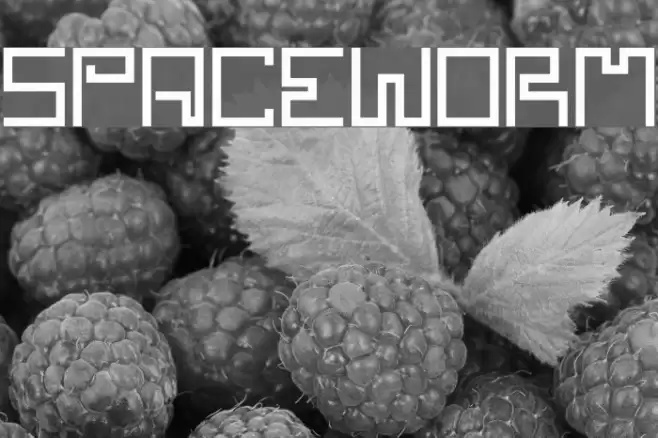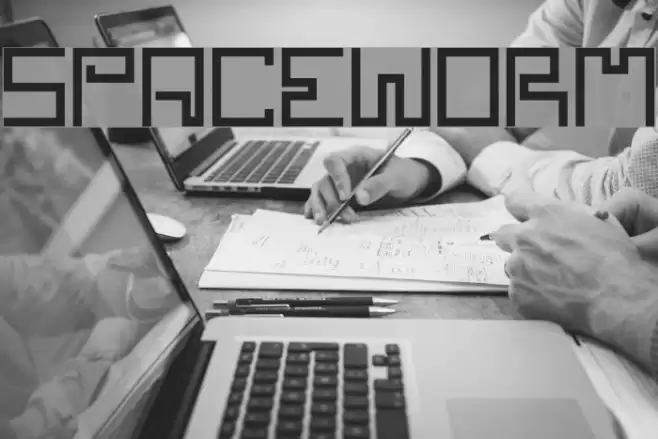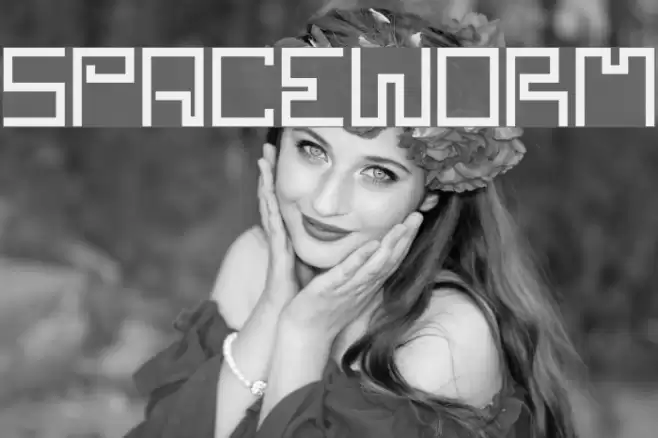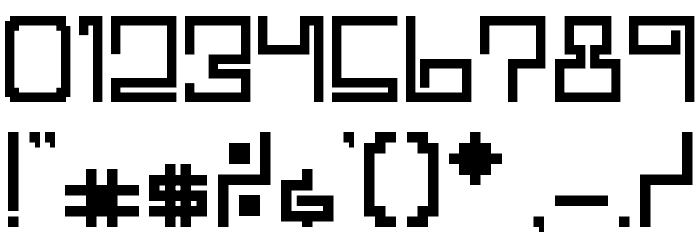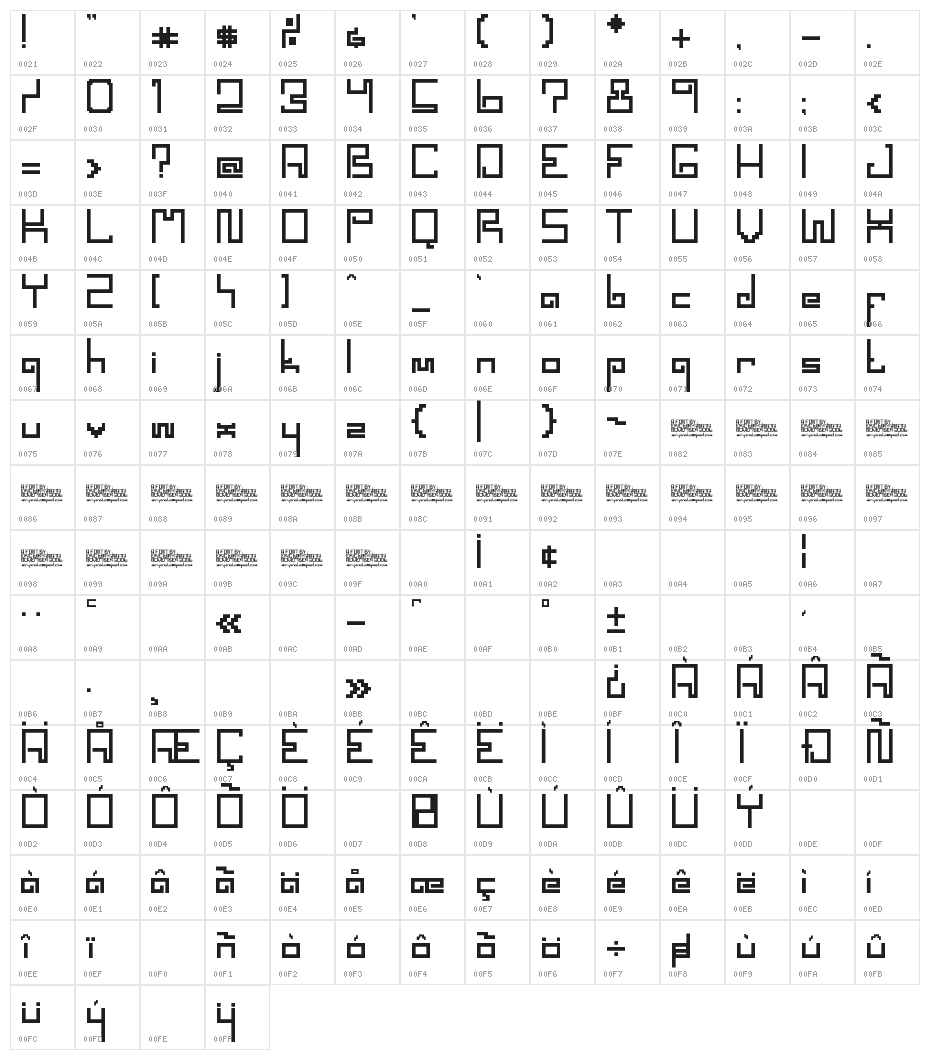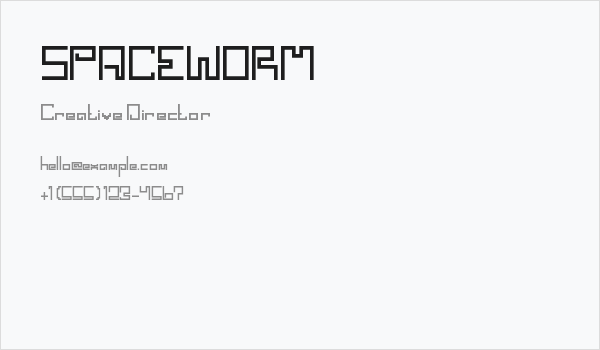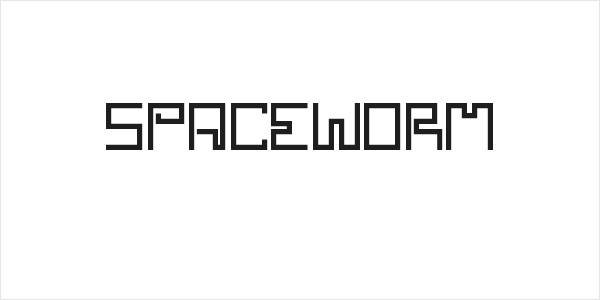
SPACEWORM Font
SPACEWORM Description
This font features a futuristic, pixelated design with a distinctly digital aesthetic. The characters are constructed with a blocky, geometric style, reminiscent of early computer graphics and video game typography. Each letter and number is composed of straight lines and right angles, giving it a structured and mechanical appearance. The uppercase and lowercase letters maintain a consistent height, contributing to a uniform look across the text. The special characters are designed to match the overall theme, with sharp edges and a minimalist approach. This font is ideal for projects that require a modern, tech-inspired look, such as digital art, video game interfaces, or sci-fi themed designs.
A futuristic, pixelated font with a digital, geometric style from Uncategorized fonts.
- Proposed Projects: Ideal for digital art, video game interfaces, sci-fi themed designs, and tech-inspired branding.